Choosing the right romantic font styles plays a major role in how Valentine’s cards communicate love and emotion. Before someone reads the message inside a card, typography already sets the mood—soft, playful, elegant, or deeply intimate. In Valentine card design, fonts are not just decorative elements; they are emotional storytellers.
This article explores romantic font styles commonly used in Valentine’s cards, compares their characteristics, and explains how each style expresses affection differently. Whether you are designing digital Valentine cards, printed stationery, or handmade notes, understanding these font styles will help you create designs that truly connect.
Why Font Choice Matters in Valentine Card Design
Valentine cards are personal by nature. Typography helps transform simple words into heartfelt messages.
Romantic typography communicates feelings such as:
- Love and affection
- Warmth and closeness
- Elegance and devotion
- Playfulness and joy
The right font choice ensures that the emotional tone of the message matches the relationship being celebrated.
Typography Enhances Personal Connection
Romantic fonts can feel handwritten, soft, or expressive, making the card feel more personal and meaningful.
Common Romantic Font Styles Used for Valentine Cards
1. Script Font for Valentine Cards
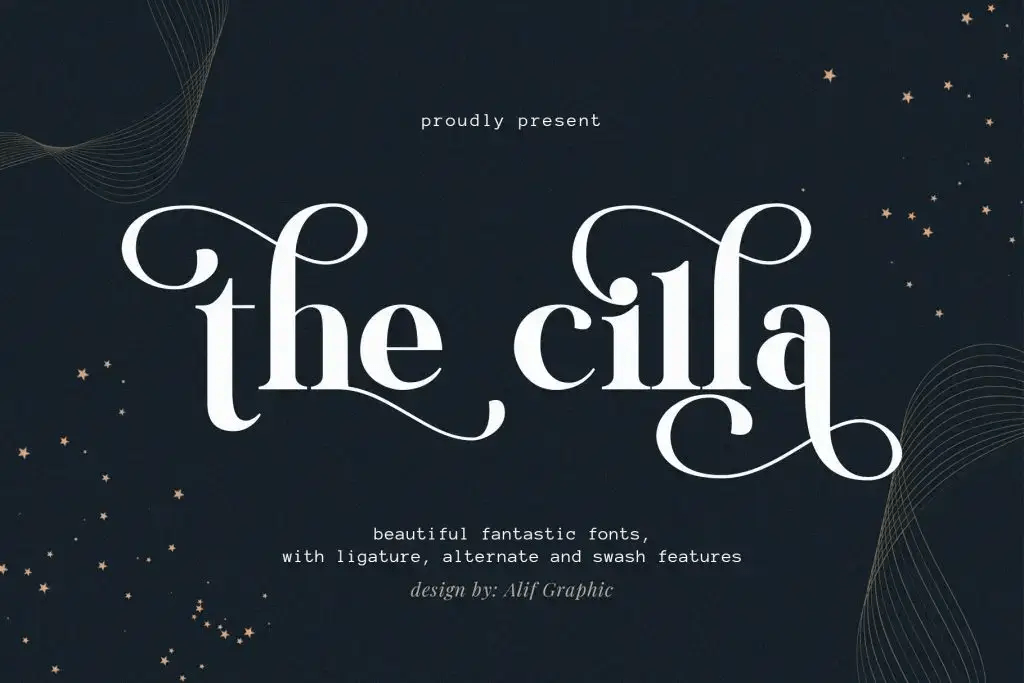
The Cilla is a stylish, bold serif font ideal for wedding invitations, fashion designs, social media posts, photography, and creative projects. Elegant and versatile.
Script fonts are the most popular romantic font styles for Valentine’s Day designs.
Characteristics of Script Fonts
- Flowing, cursive letterforms
- Inspired by handwriting or calligraphy
- Smooth connections between letters
Script fonts feel intimate and personal, making them ideal for expressing love.
When to Use Script Fonts
Script styles work best for:
- Valentine card headlines
- Names and short messages
- Love quotes
However, they should be used sparingly, as long paragraphs may reduce readability.
2. Serif Font for Elegant Romance
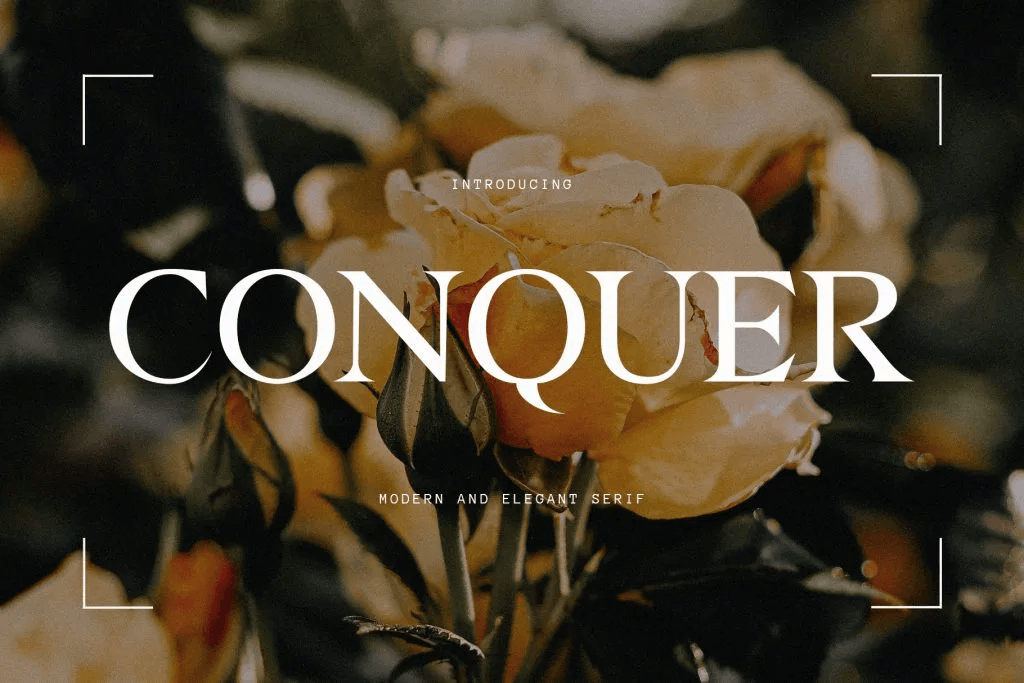
Conquer is a modern and elegant serif font that blends creativity and individuality. Ideal for beauty, fashion, and social media projects, it adds a playful and expressive touch to any design.
Romantic design does not always mean cursive fonts.
Characteristics of Serif Fonts
Serif fonts include small strokes at the ends of letters and often feel:
- Classic
- Elegant
- Timeless
In Valentine cards, serif fonts convey mature, refined romance.
Best Use Cases for Serif Fonts
Serif romantic fonts are ideal for:
- Formal Valentine cards
- Long messages or poems
- Elegant or vintage-inspired designs
They balance romance with clarity.
3. Sans-Serif Font for Modern Romance
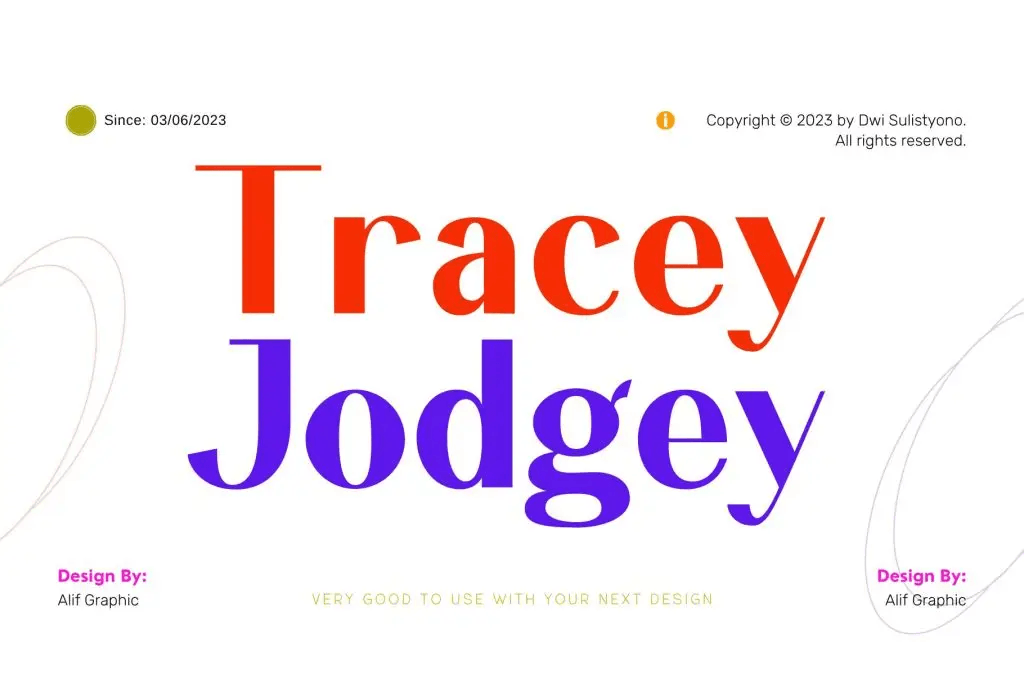
Tracey Jodgey is a modern sans-serif font that blends elegance with contemporary style. Ideal for beauty, fashion, social media, and creative projects, it elevates your typography with refined sophistication.
Modern Valentine designs often rely on clean typography.
Characteristics of Sans-Serif Fonts
Sans-serif fonts are:
- Simple and clean
- Easy to read
- Contemporary in style
When paired with romantic colors or layouts, they create modern and minimal romance.
When Sans-Serif Fonts Work Best
These styles are suitable for:
- Digital Valentine cards
- Minimalist designs
- Younger or playful audiences
Sans-serif fonts show that romance can feel fresh and current.
4. Handwritten Font for Personal Valentine Cards
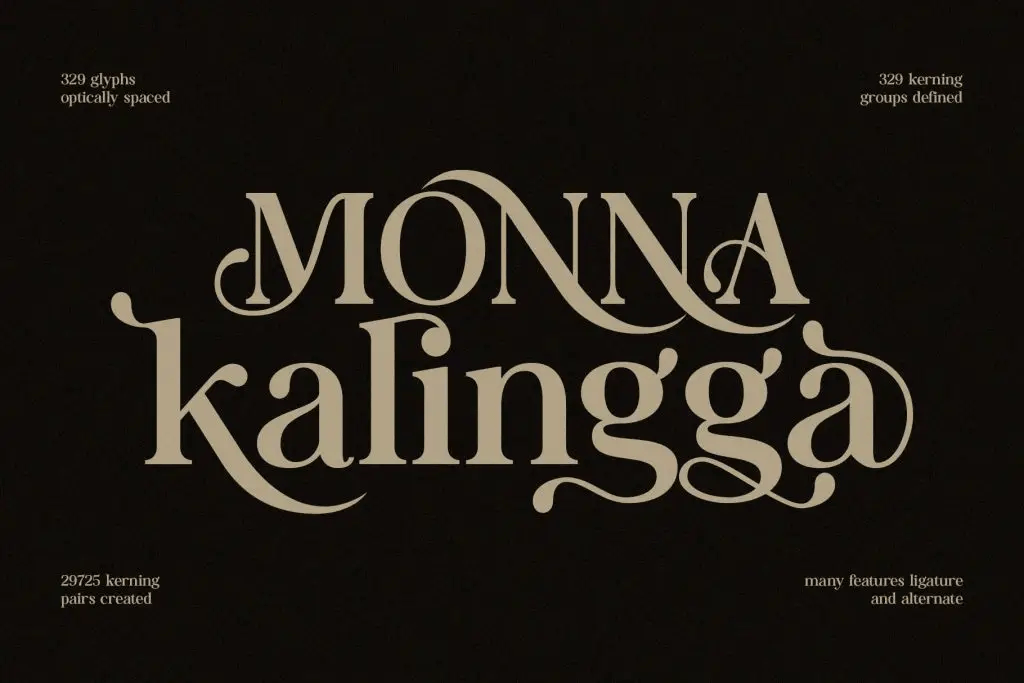
Monna Kalingga is a decorative serif font with elegant letters and ligatures, ideal for invitations, branding, and creative projects.
Handwritten fonts feel casual and heartfelt.
Emotional Impact of Handwritten Fonts
These fonts:
- Mimic personal notes
- Feel warm and spontaneous
- Create an intimate atmosphere
They are perfect for cards meant to feel homemade or deeply personal.
Best Applications
Handwritten romantic font works well for:
- DIY Valentine cards
- Messages between close partners
- Informal or playful designs
They make the reader feel personally addressed.
5. Decorative Font for Expressive Valentine Designs
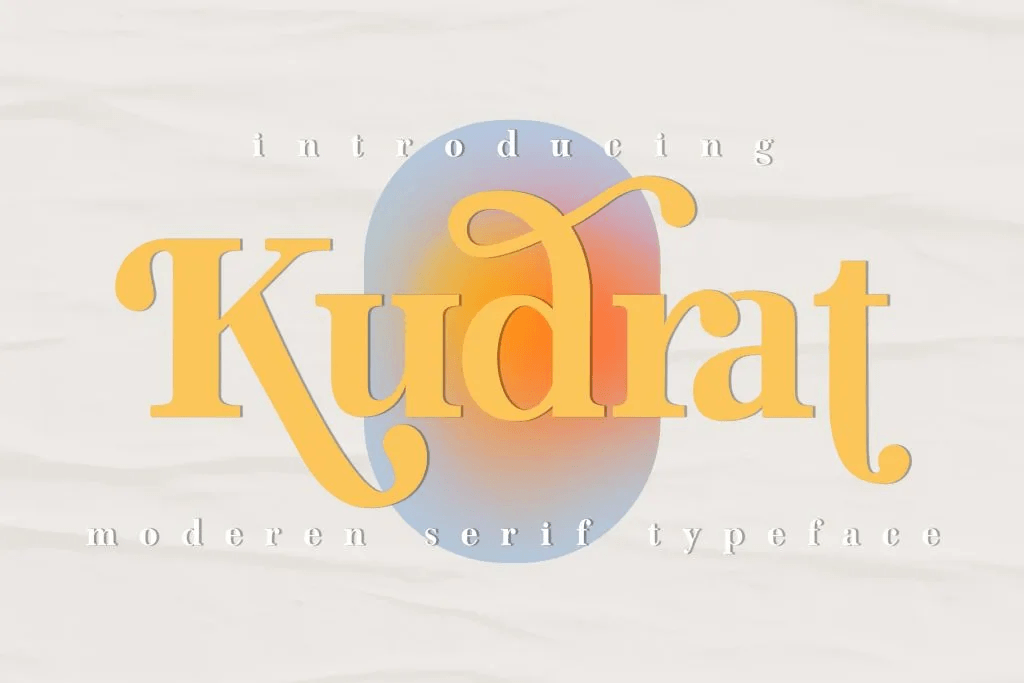
Kudrat is a bold and decorative serif font with vintage charm. Ideal for fashion, magazines, social media, and elegant branding.
Decorative fonts are bold and visually expressive.
Characteristics of Decorative Fonts
- Unique shapes
- Thematic elements such as hearts or flourishes
- Strong visual presence
Decorative styles can instantly communicate romance, but should be used carefully.
Final Thoughts on Romantic Font Styles for Valentine Cards